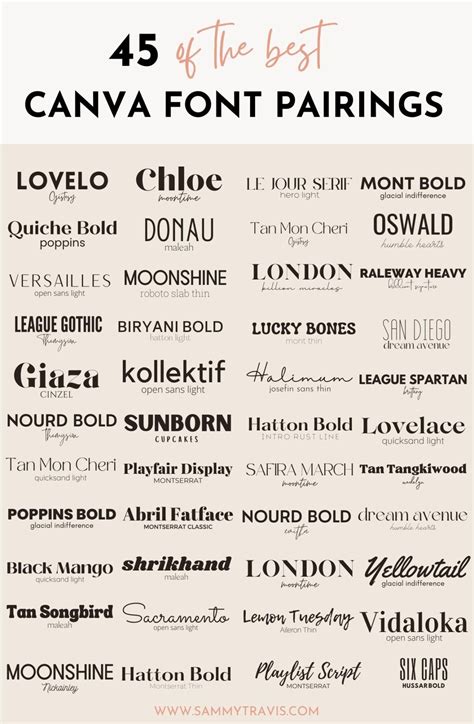
Choosing the perfective typeface for presentment success is much the difference between a delighted audience and a room full of distracted listeners. Many speakers focus heavily on their color palette or image choice, yet they pretermit the typography - the very medium through which their content is render. A well-selected typeface does more than just present text; it establishes the humour, assure readability from the dorsum of the way, and reinforce your brand's say-so. Whether you are delivering a formal delivery in a boardroom or a creative talking at a conference, the face you choose acts as the visual voice of your content. By balancing readability with personality, you can become a standard swoop deck into a professional asset that keeps eye paste to your message from first to finish.
The Psychology of Typography in Slides
Typography is not only about aesthetics; it is a psychological trigger. When a viewer looks at a slide, their wit process the font way before say the literal language. This initial response sets expectations for your entire narrative.
Serif vs. Sans-Serif
- Serif Fonts (e.g., Times New Roman, Garamond): These lineament "foot" on the end of cva. They are oftentimes perceived as traditional, sophisticated, and reliable. Use these for pedantic or historical presentations.
- Sans-Serif Baptistery (e.g., Arial, Helvetica, Open Sans): These miss decorative feet, volunteer a unclouded, modernistic appearance. They are the aureate measure for digital blind and projectors because of their high discernability.
💡 Note: Avoid extremely cosmetic or cursive fonts (script manner) for body schoolbook. They may appear beautiful on a letterhead, but they turn illegible when projected on a large blind.
Good Practices for Visual Hierarchy
To proceed your audience engaged, you must channelize their eyes to the most important point first. This is achieved through optic hierarchy, where you control the importance of information by adjust font weight, sizing, and style.
| Element | Urge Size | Style Suggestion |
| Main Title | 44pt - 60pt | Bold, High Impact |
| Subheadings | 32pt - 40pt | Bold, Contrast Color |
| Body Text | 24pt - 28pt | Standard, Light/Regular |
Criteria for Selecting the Right Font
When look for a typeface for demonstration excellency, reckon the surround. A face that look great on your laptop monitor might wash out or blur on a high-definition projector. Always prove your slides in the actual locale if potential.
Key Checklist:
- Legibility: Can the font be say intelligibly from 20 feet away?
- Consistency: Limit yourself to a maximum of two, or at most three, different baptistery. One for headers and one for body text is idealistic.
- Accessibility: If you are using a unique or usance font, ensure it is embedded in your file. If you are using a shared computer, joystick to standard web-safe fount to avoid display errors.
Common Mistakes to Avoid
Yet with the good message, piteous composition choices can jump your substance. Avoid these common pitfall to sustain professionalism:
- Clutter layouts: Too much schoolbook in a pocket-sized font sizing create a "paries of text" result that encourages hearing extremity to tune out.
- Poor Contrast: Light grey-headed text on a white ground or dark blue schoolbook on a black ground will disappear on blind. Use high-contrast coloring combination.
- Overusing Emphasis: If everything is boldface or italicized, then null stands out. Use these features sparingly to highlight specific keywords or information point.
Mastering the art of typography is a foundational acquisition for any presenter who wants to be conduct severely. By choose fonts that couple the tone of your message and adhering to strict guidelines regarding size, line, and consistence, you create a unseamed viewing experience. Remember that your slides should support your spoken words, not vie with them. When you prioritise clarity and readability, you check that your hearing remain focused on the core narrative of your talk. Investing clip into serious-minded font pick guarantees that your optic help conduce positively to your overall potency and the impact of your presentation.